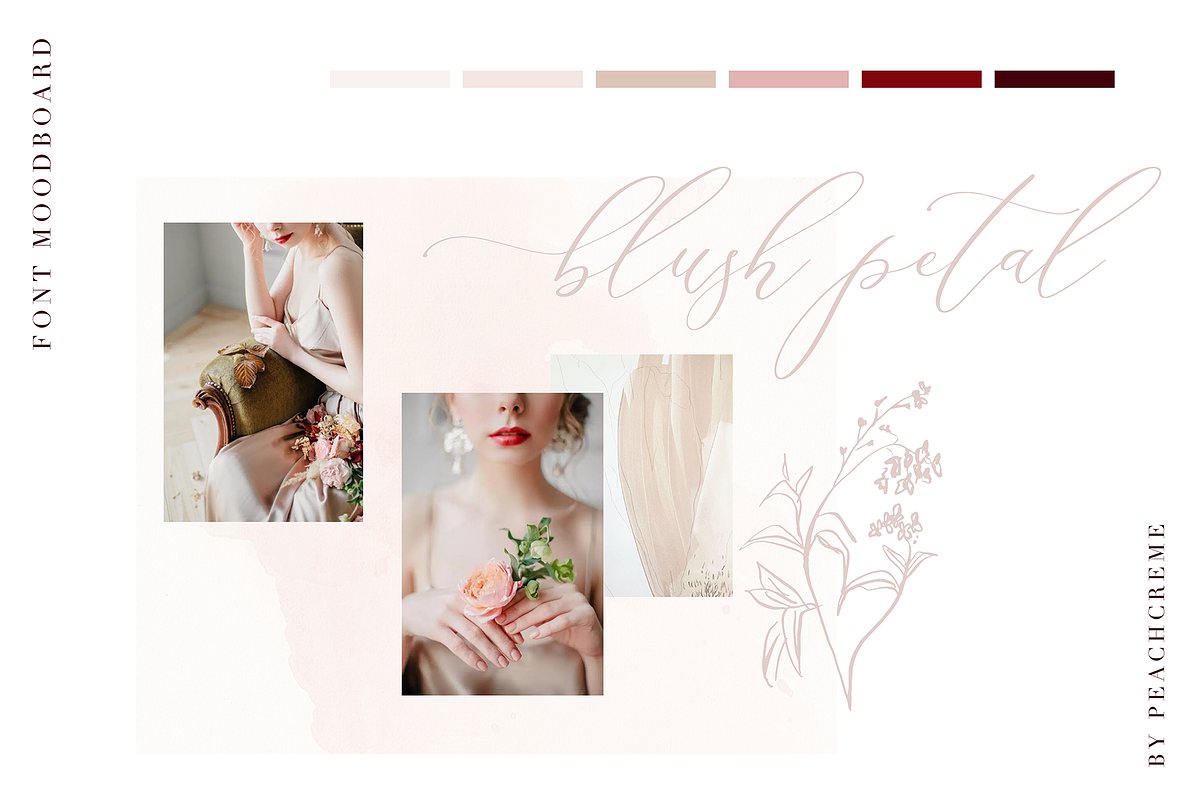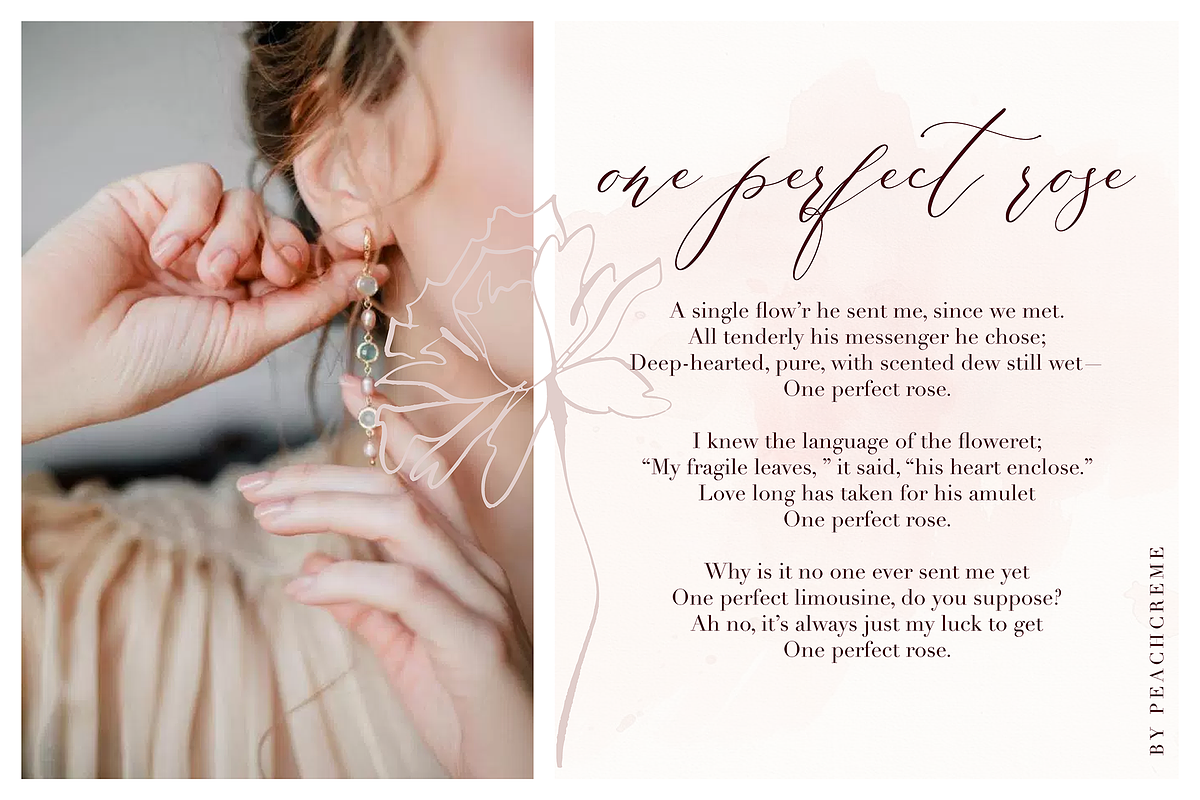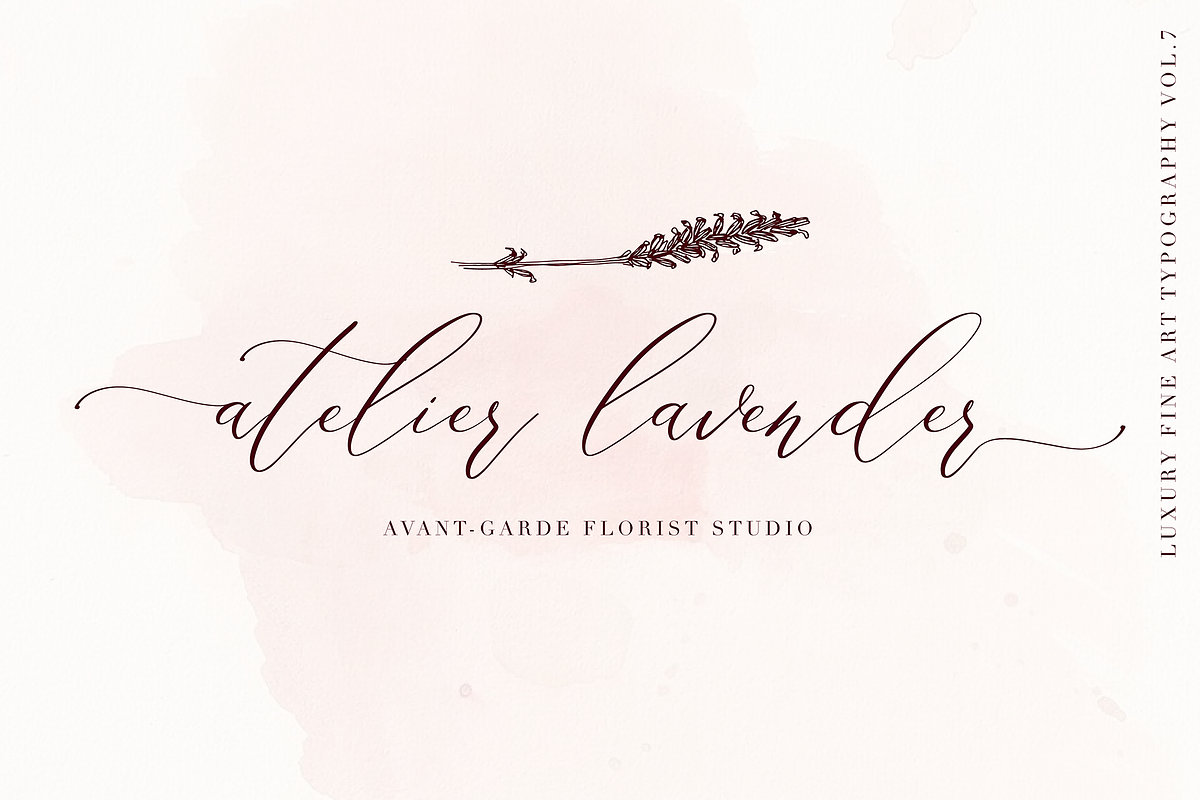
Floral Hearts Font
Floral Hearts is a modern calligraphy font with contemporary, sophisticated accents. It is perfect for branding, wedding invites and cards.
The font includes a full set of gorgeous uppercase and lowercase letters, numerals, punctuation and ligatures. All lowercase letters include beautiful beginning and ending swashes.